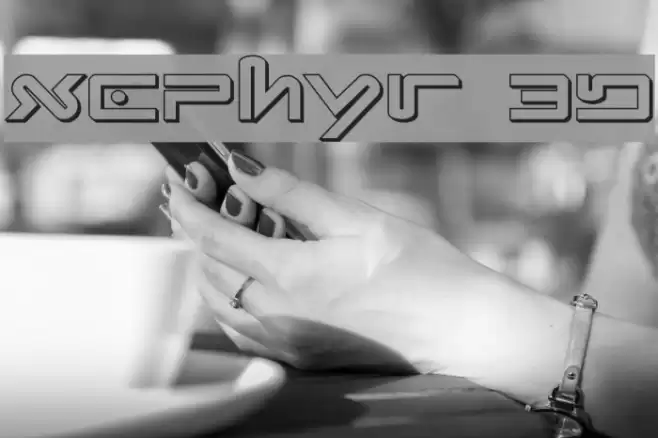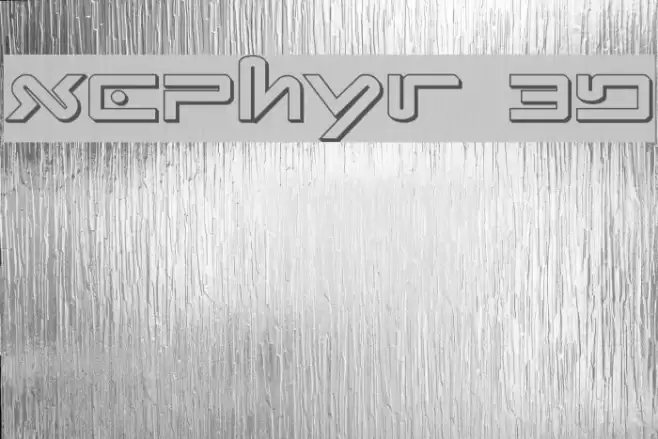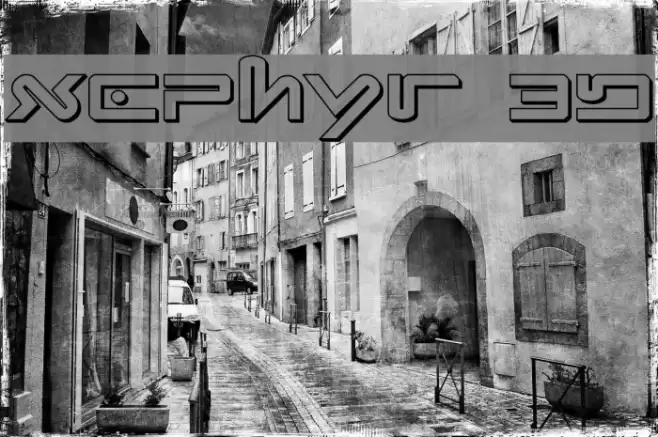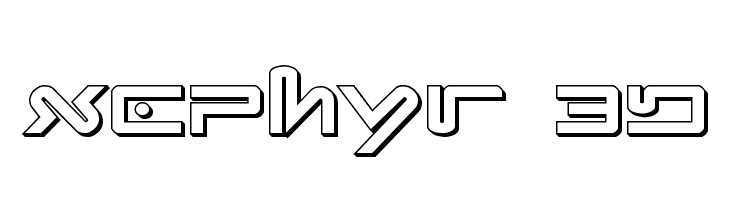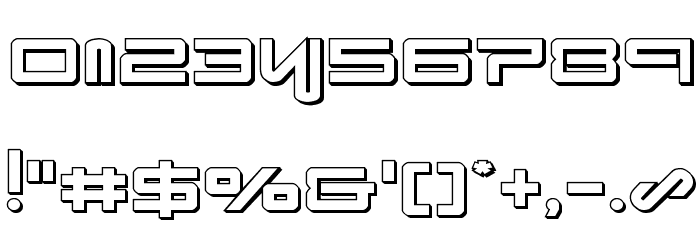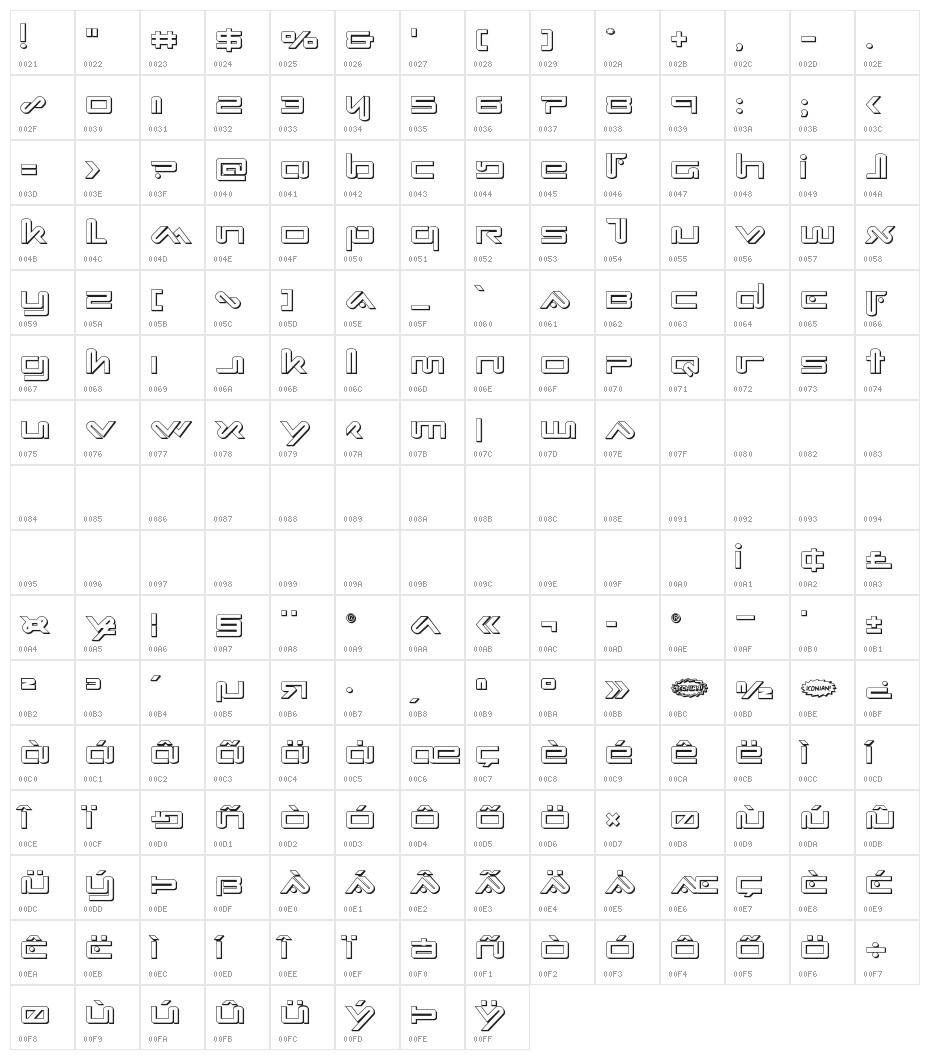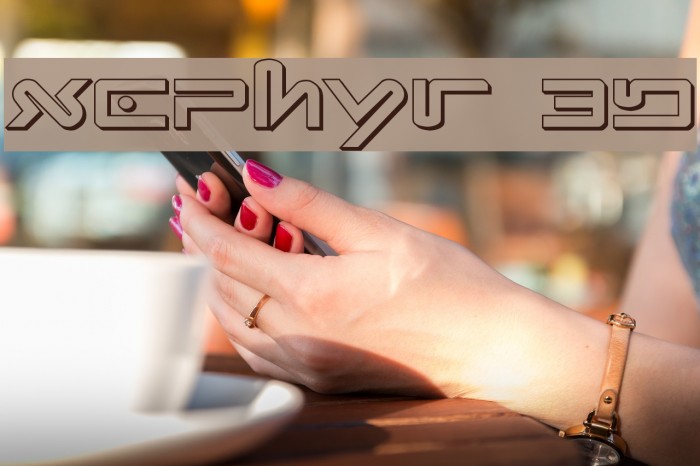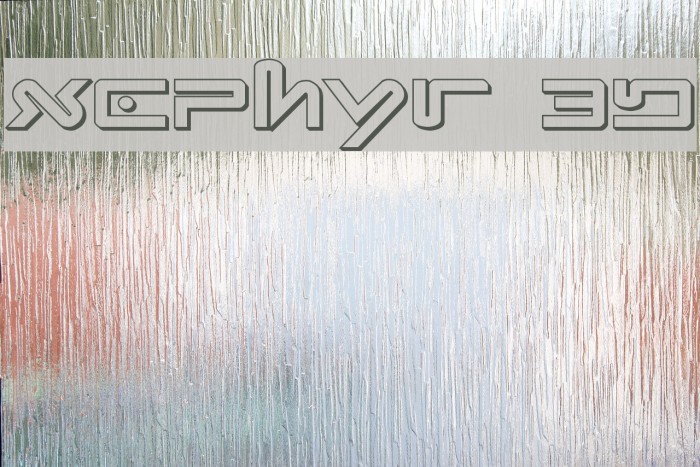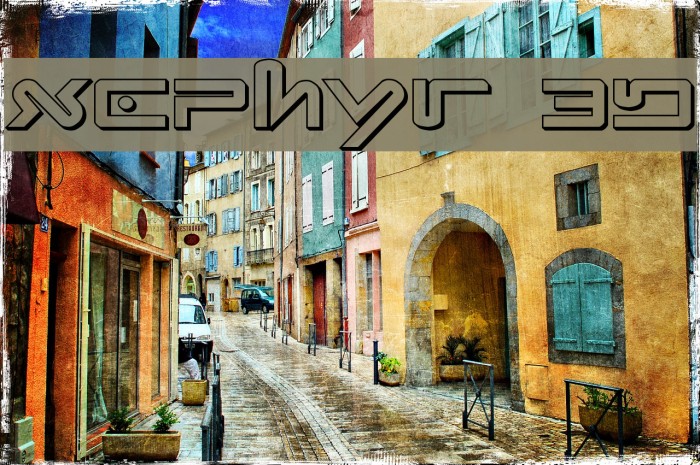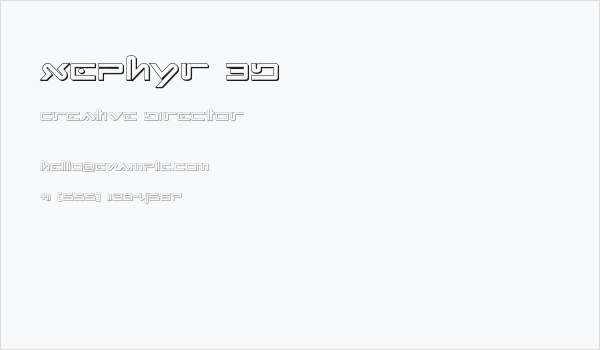
Xephyr 3D Font
Xephyr 3D Description
This font features a futuristic and geometric design, characterized by its bold, three-dimensional appearance. The letters are outlined with a consistent thickness, creating a hollow effect that enhances its modern aesthetic. The angular and sharp edges give it a dynamic and tech-inspired look, making it stand out. The uppercase and lowercase letters maintain a uniform style, with some characters incorporating unique cuts and angles that add to its distinctiveness. Numbers and special characters follow the same design principles, ensuring a cohesive visual experience across all elements.
A futuristic, geometric font with a bold, 3D outline style from Uncategorized fonts.
- Proposed Projects: Ideal for technology branding, sci-fi themed projects, video game titles, and futuristic posters.